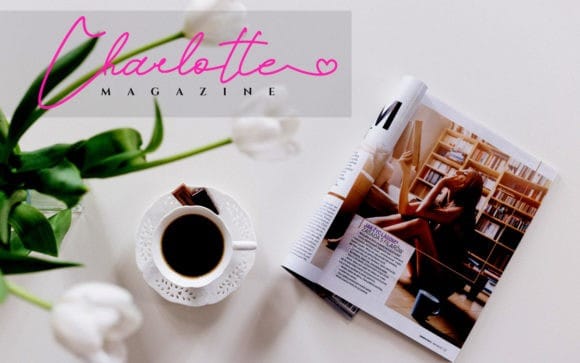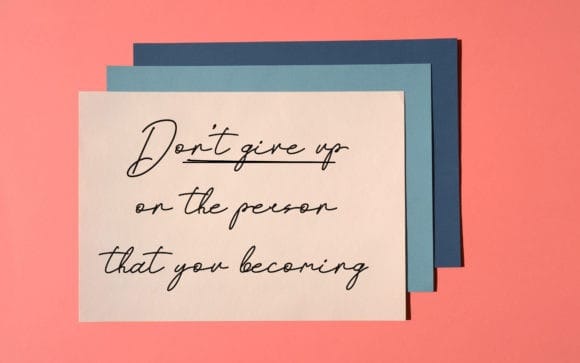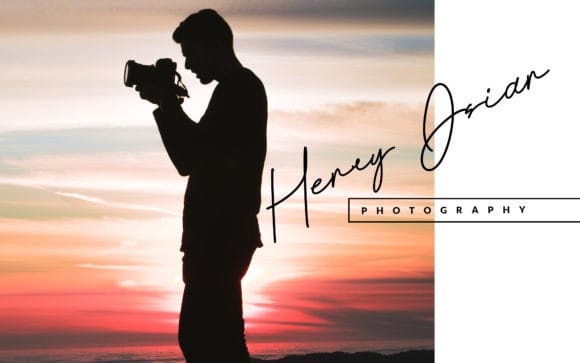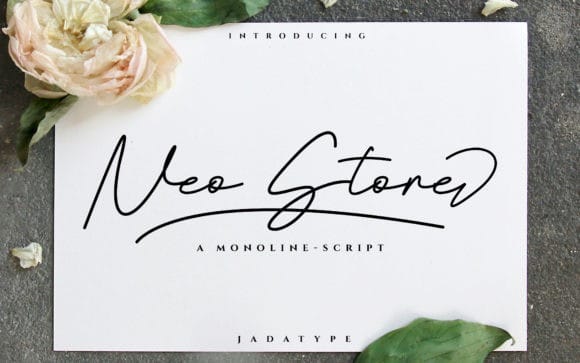
Neo Stone Handwritten Font
Neo Stone Handwritten Font is a modern look of handwritten font, can make your text appear elegant, luxurious, and modern!. This typeface is designed and shared by jadatype. It’s an elegant and flowing Signature font. This font is PUA encoded which means you can access all of the glyphs and swashes with ease! It features a varying baseline, smooth lines, gorgeous glyphs and stunning alternates.
Fall in love with its incredibly versatile style and use it to create spectacular designs!